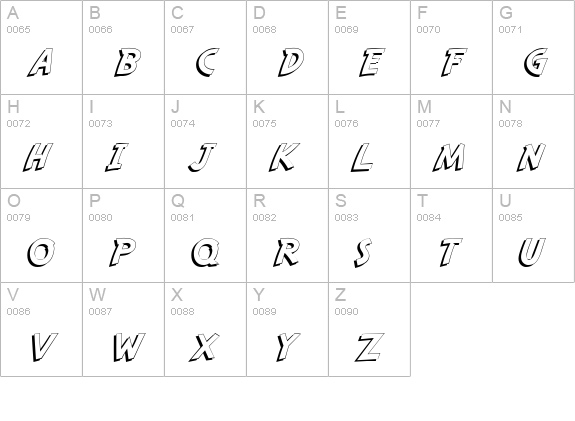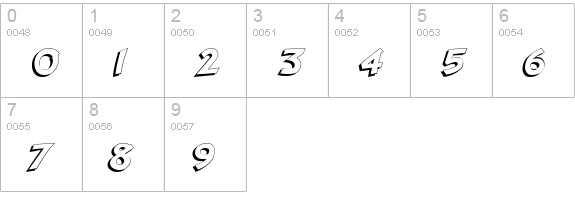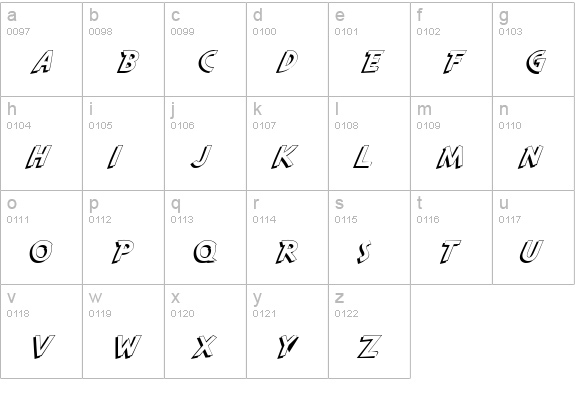
SafariShadow Font Details
SafariShadow font is a stunning display typeface that exudes elegance and sophistication. With its unique shadow effect, this font effortlessly adds depth and dimension to any design project. Whether you're creating a logo, poster, or website, SafariShadow will captivate your audience and leave a lasting impression. What sets SafariShadow font apart is not only its exquisite design but also the fact that it is available for free. Yes, you read that right! This amazing font can be freely downloaded at FontsMarket.com, making it accessible to designers and creatives around the world. The detailed and intricate shadow effect of SafariShadow font adds a touch of mystery and allure to your typography. It effortlessly combines boldness and subtlety, making it perfect for a wide range of applications. Its versatility allows it to be used in both formal and informal settings, giving your designs a touch of sophistication and personality. With SafariShadow font, you have the freedom to create visually stunning designs that stand out from the crowd. Its clean and crisp lines make it easily legible even at smaller sizes, ensuring that your message is conveyed effectively. Whether you're looking to create a logo for your business, design a poster for an event, or enhance your website with stylish typography, SafariShadow font is the perfect choice. And the best part? It's absolutely free to download at FontsMarket.com. So why wait? Unlock your creativity and elevate your designs with SafariShadow font. Download it now and let your imagination run wild.